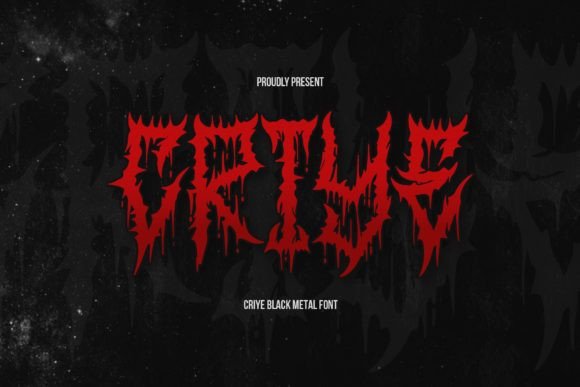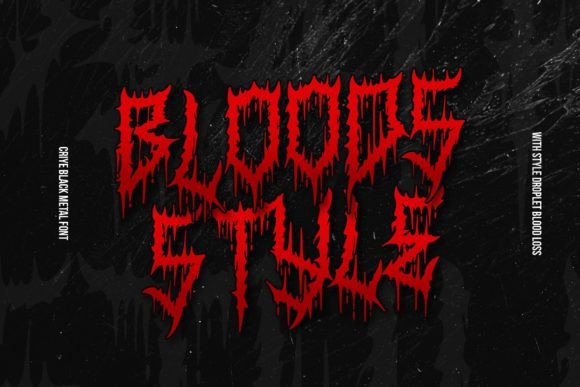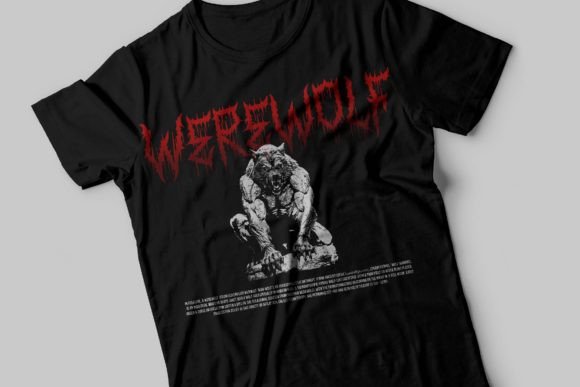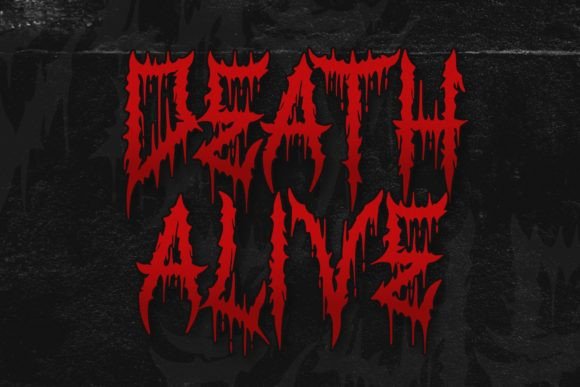
Criye Font: A Bold Gothic Font for Band Logos & Edgy Designs
About the Criye Font
Explore the possibilities with Criye Font, a font that offers both beauty and functionality. Criye is a bold and edgy font perfect for creating dark and intense designs. Its sharp, jagged letters give it a unique, gothic look, making it ideal for band logos, album covers, and any project that needs a strong, mysterious feel.
Criye excels in headlines, short impactful statements, and branding applications requiring a strong visual presence. Its aggressive forms make it unsuitable for body text or UI elements where readability is paramount; extended use would strain the eye. Consider using it sparingly for maximum impact.
Its gothic aesthetic lends itself to projects with a rebellious, dark, or mysterious tone – think edgy fashion brands, rock music promotions, or horror-themed projects. Avoid pairing it with overly delicate scripts; instead, consider a strong geometric sans-serif for contrast or a classic serif like Garamond for a sophisticated juxtaposition.
A neutral sans-serif such as Open Sans could also provide a suitable counterpoint, allowing Criye’s boldness to shine without overwhelming the design. The key is to balance its intense personality with a calmer, more legible companion.